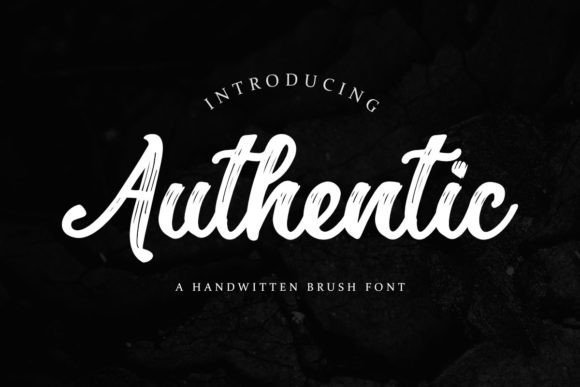
Adding a Touch of Personality to Your Designs
Do you remember the feeling of scribbling down a heartfelt message to a loved one in a beautiful, handwritten note? The way the pen glides across the paper, creating unique strokes and flourishes that convey your emotions? That’s the kind of magic the Authentic Font brings to your designs.
This elegant, cursive font is inspired by the look and feel of writing with a digital brush, making it a perfect choice for adding a personal touch to your projects. Whether you’re creating a logo, poster, or social media post, the Authentic Font can help your text stand out with its unique and expressive style. It’s easy to use and compatible with most design software, making it a valuable addition to any designer’s toolkit.
Authentic Font Key Features
- Unique Characteristics: Authentic Font features a distinctive, hand-crafted design with subtle nuances and imperfections, giving it a natural, organic feel.
- Font Weight and Style: Authentic Font comes in multiple weights, from Light to Bold, and features a range of styles, including Regular, Italic, and Bold Italic, allowing for versatility and flexibility in design.
Authentic Font Review
Overall, I’d say the Authentic Font is a solid addition to any designer’s toolkit. Here’s what works well:
- ✨ Unique character set: The font’s custom characters give it a distinct feel that can help you stand out in a crowded design landscape.
- ✨ Versatility: Authentic Font works well for both digital and print projects, making it a great choice for designers who need a versatile font.
- ✨ Good for body text: The font’s readability makes it suitable for longer blocks of text, which is a must-have for designers who need to convey a lot of information.
- ⚠️ Limited language support: The font’s character set is geared more towards English, which can be a problem for designers who work with non-English languages.
- ⚠️ Not ideal for titles: While the font works well for body text, it’s not the most eye-catching choice for titles or headings.
- ⚠️ Some users may find it too casual: The font’s relaxed feel may not be suitable for all projects, particularly those that require a more formal tone.
Overall, I’d recommend the Authentic Font for designers who want a unique, versatile font for body text. However, it may not be the best choice for titles, formal projects, or languages other than English.
Authentic Font is ideal for:
- Designing logos and branding materials
- Creating professional-looking documents and presentations
- Adding a touch of elegance to digital products and websites